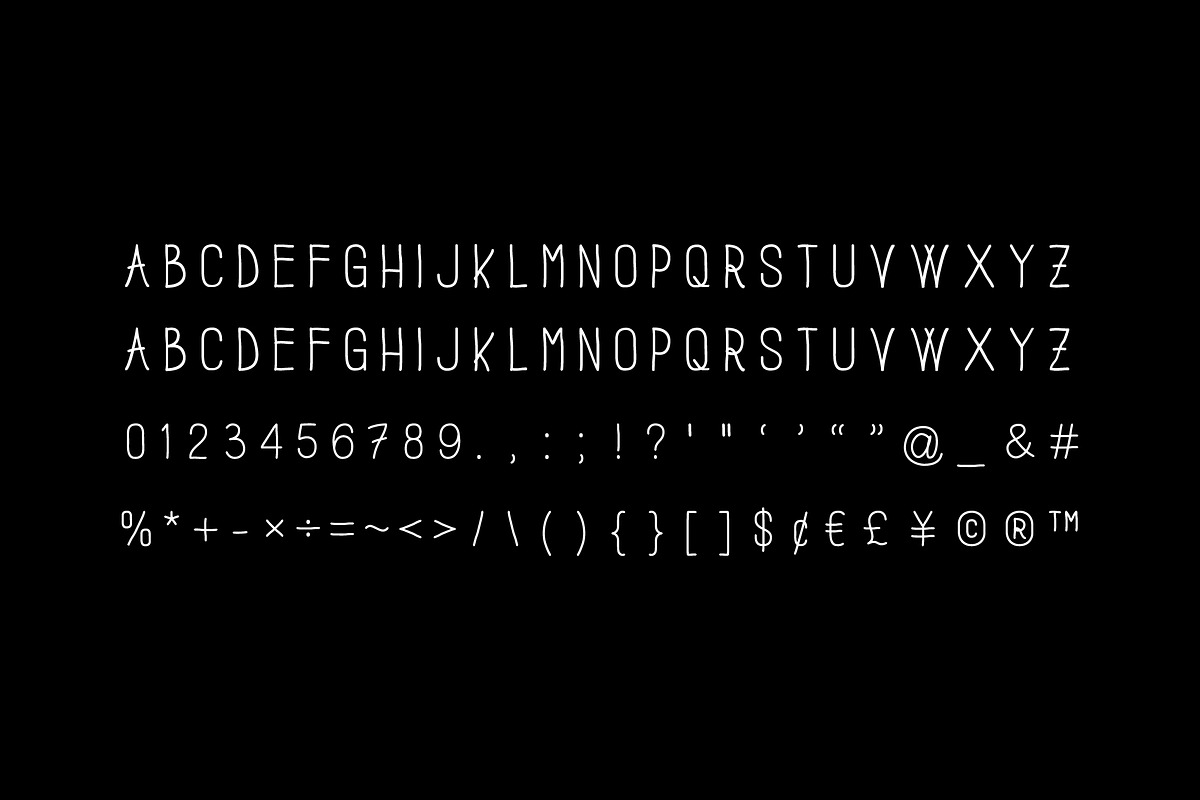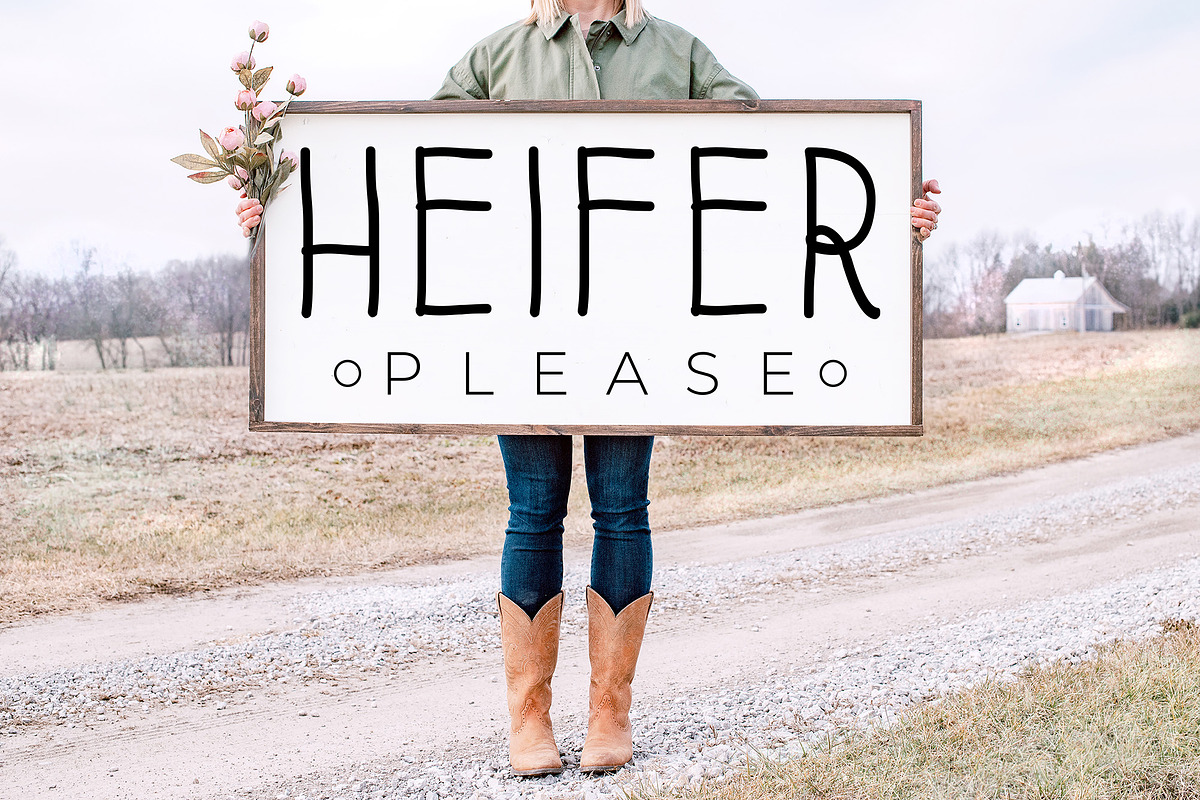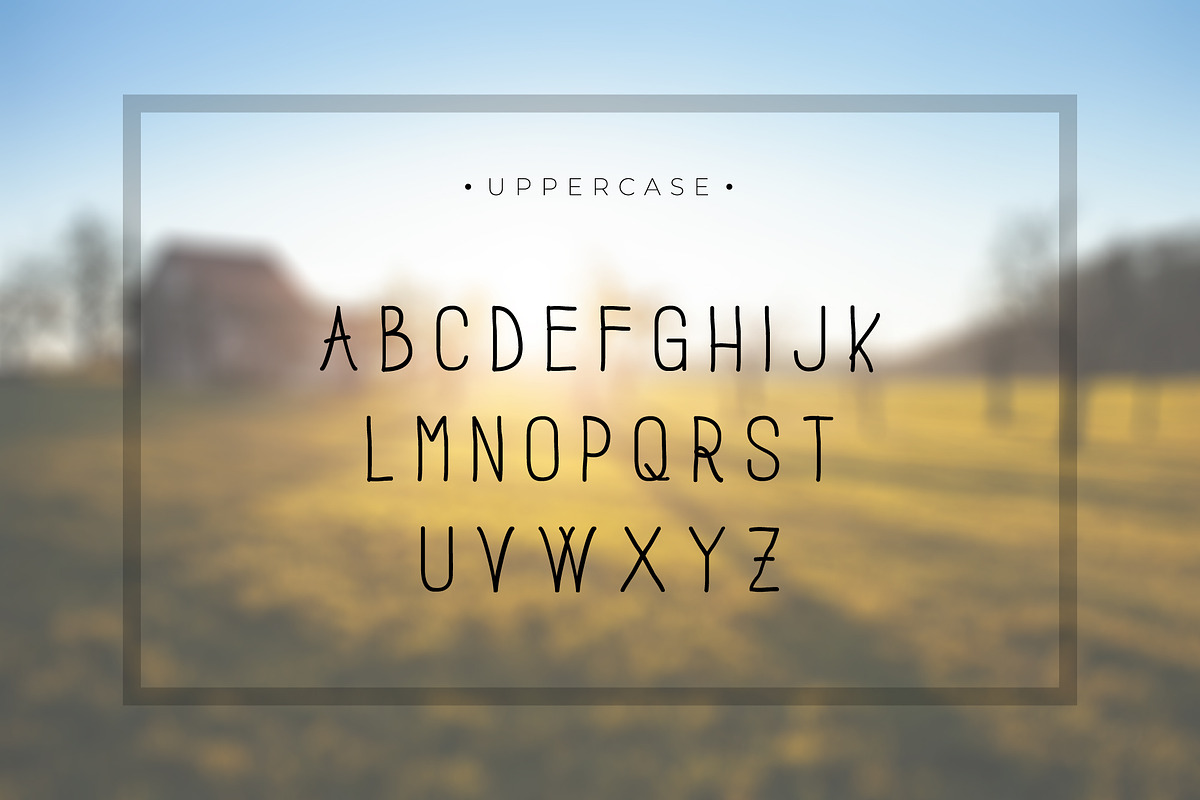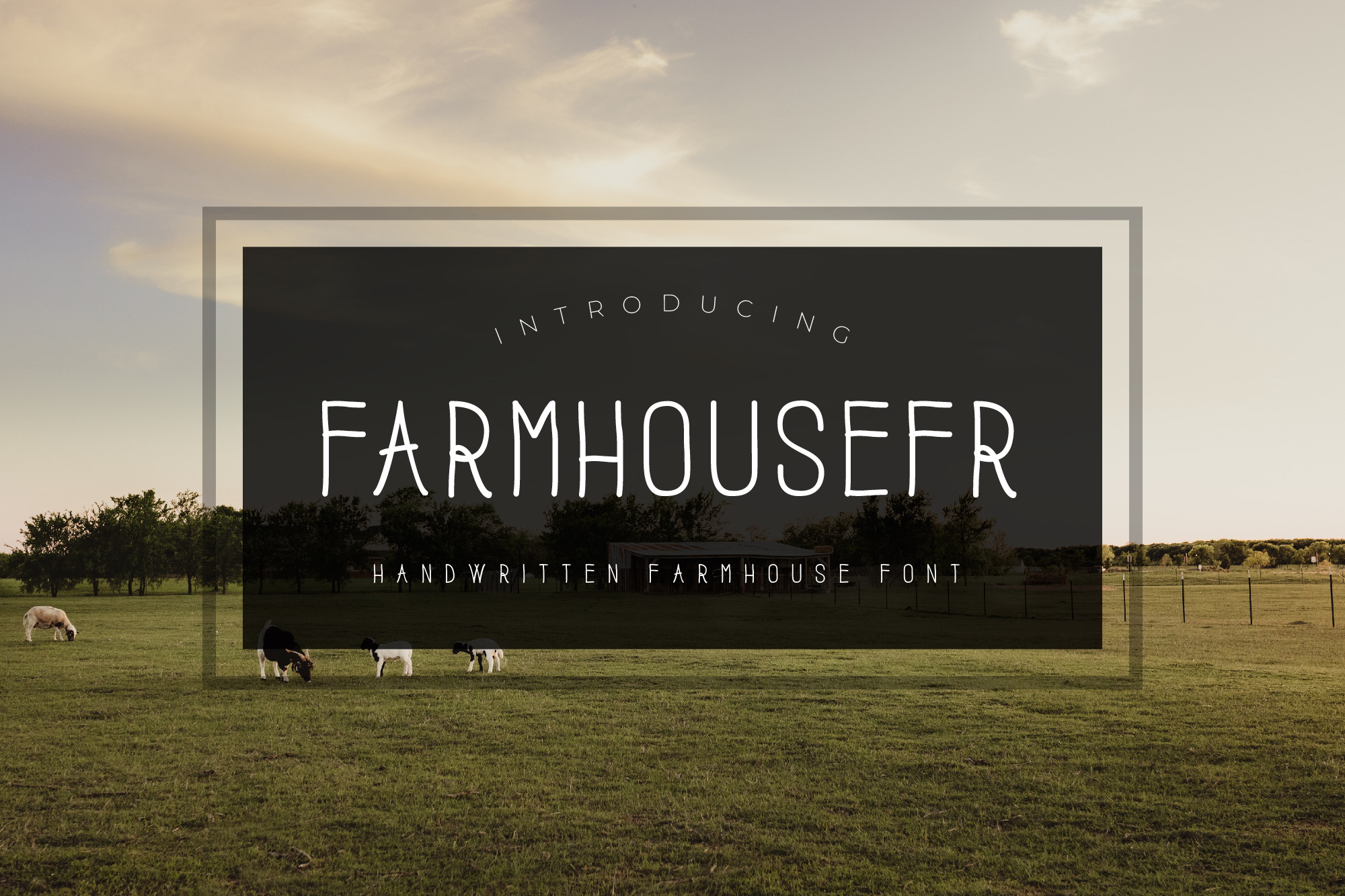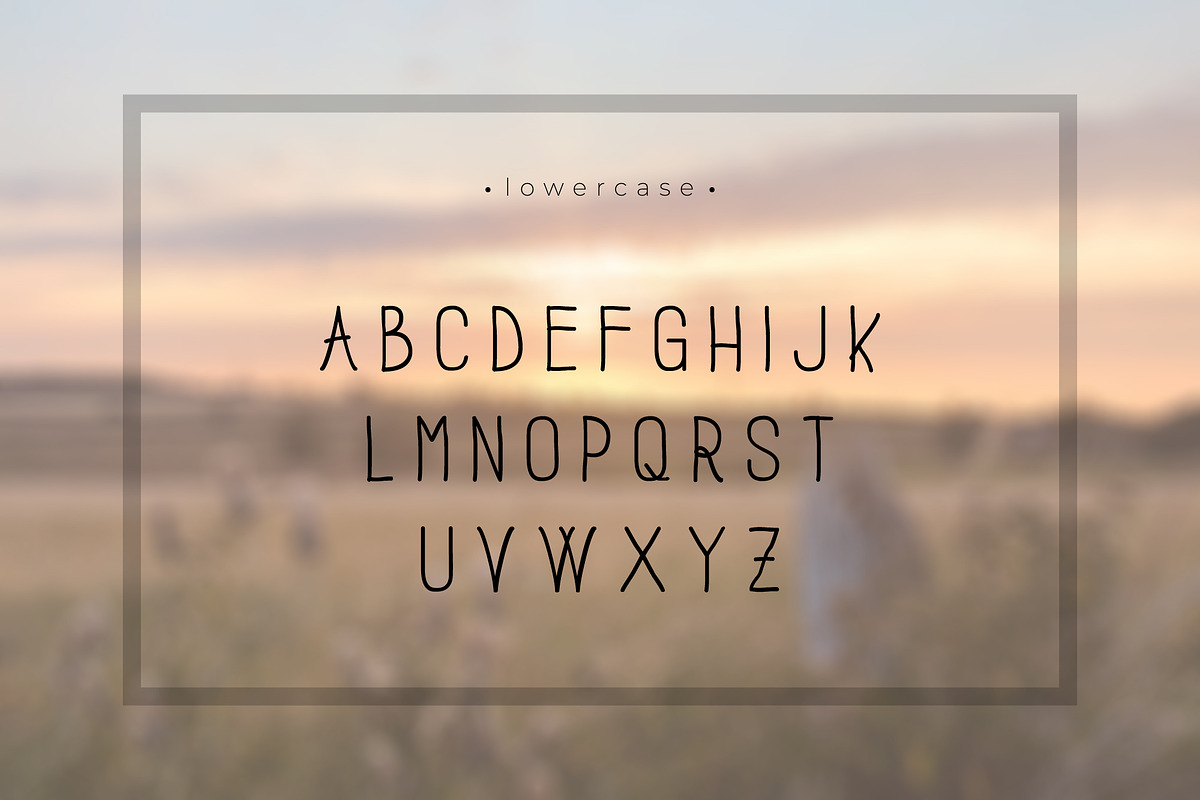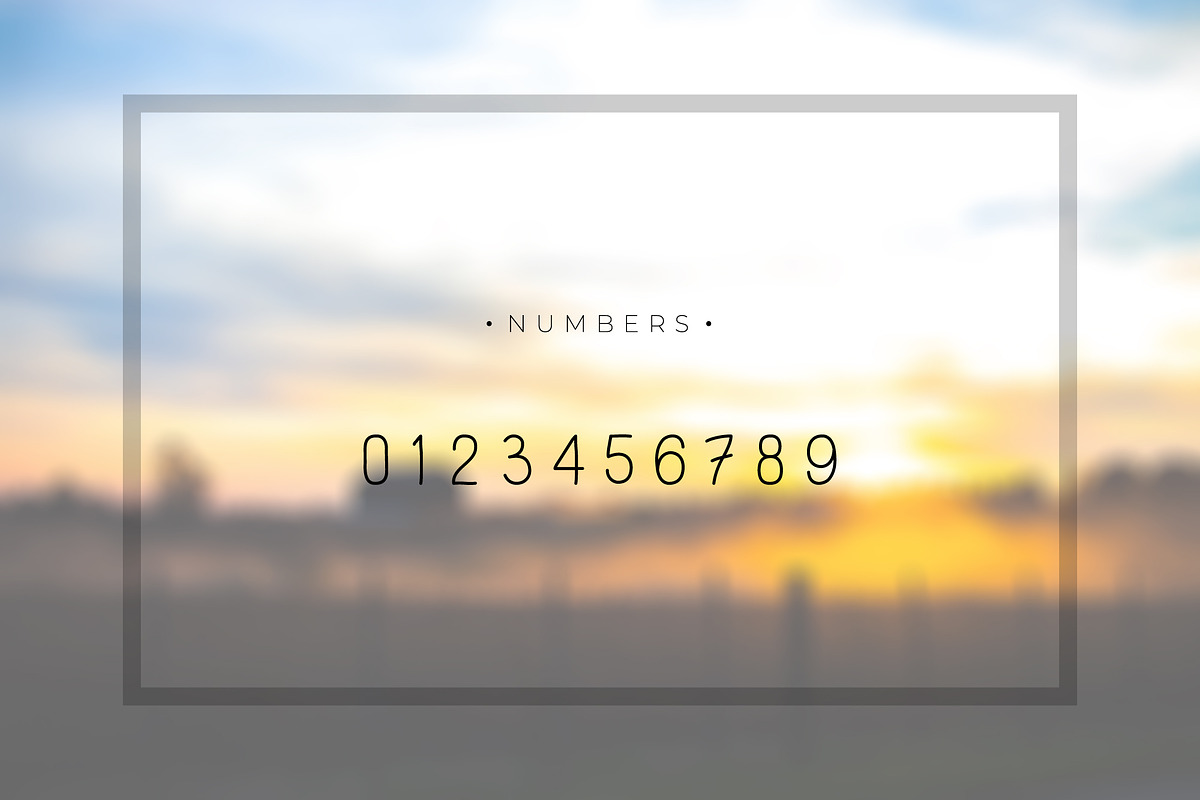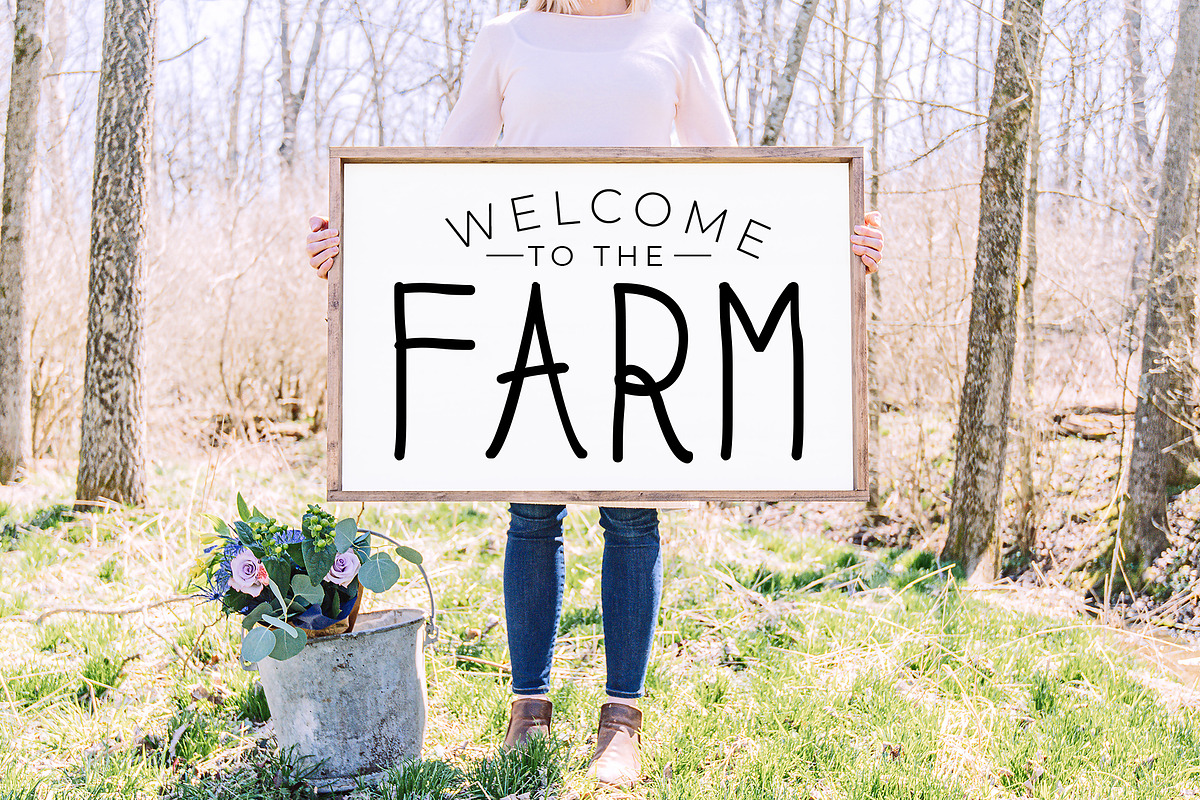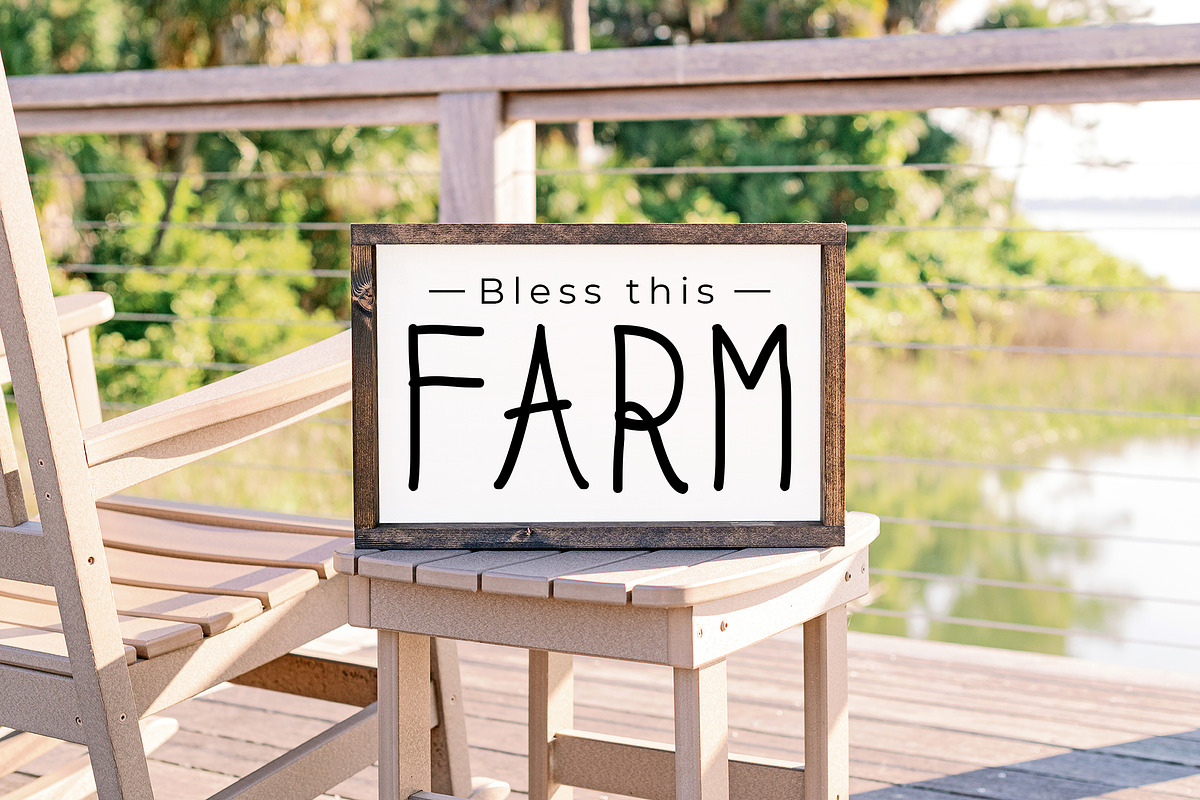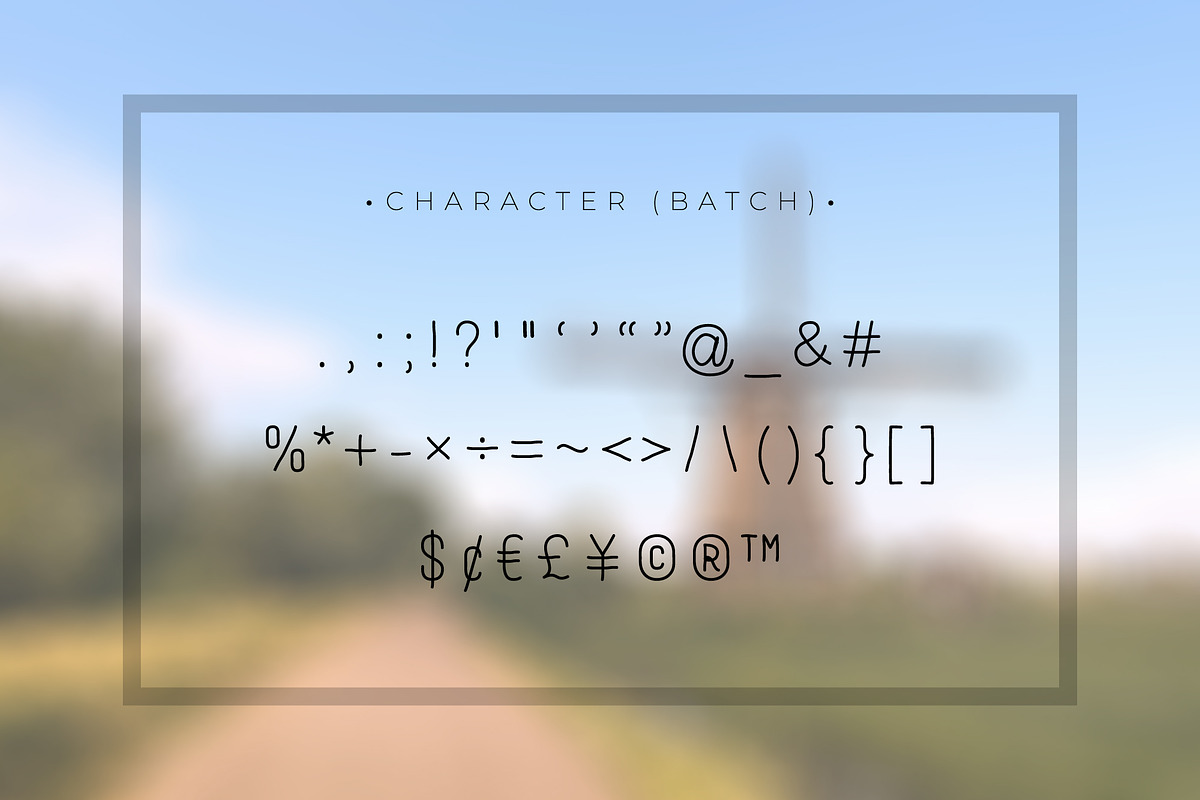
Farmhouse - Handwritten Font
Farmhouse is a simple and clean handwritten font. Its natural and unique style makes the font suitable for your farmhouse signs, decor, cards and much more.